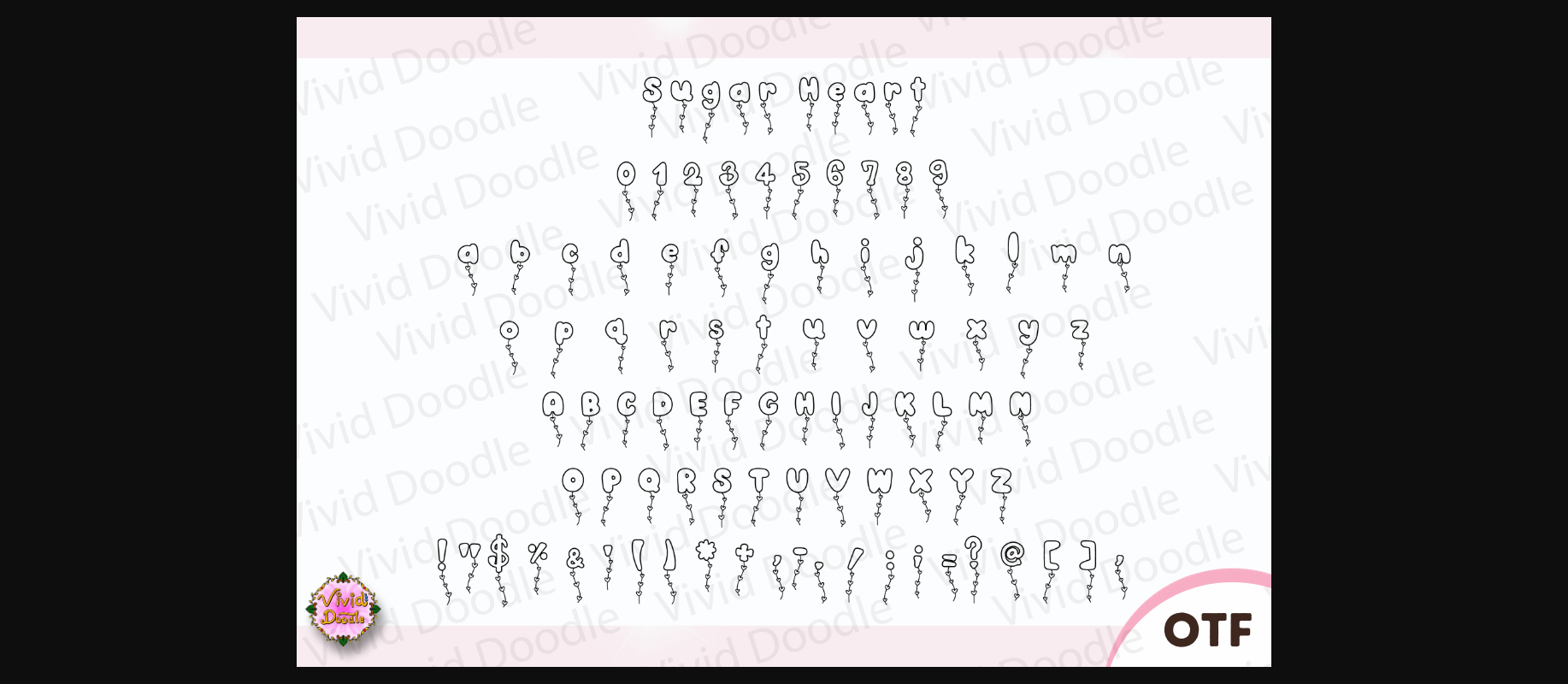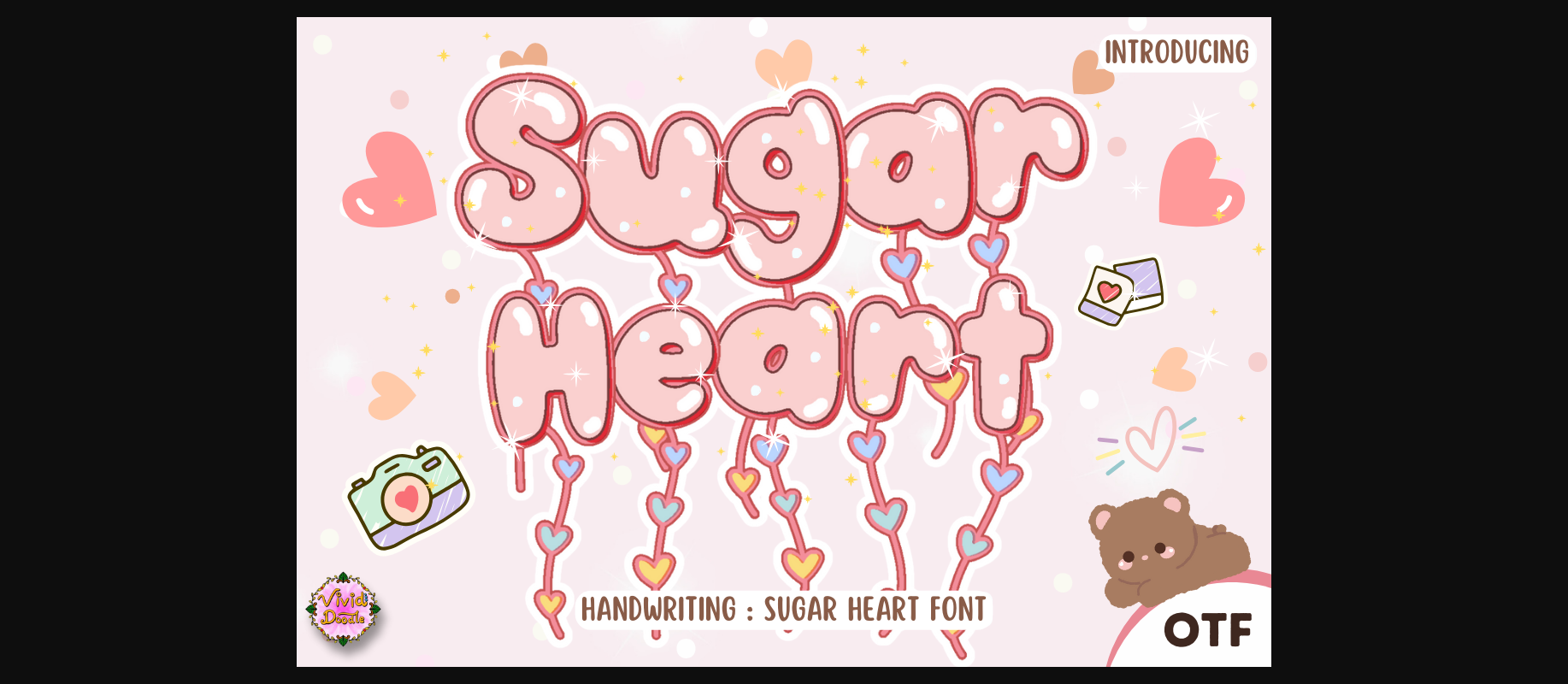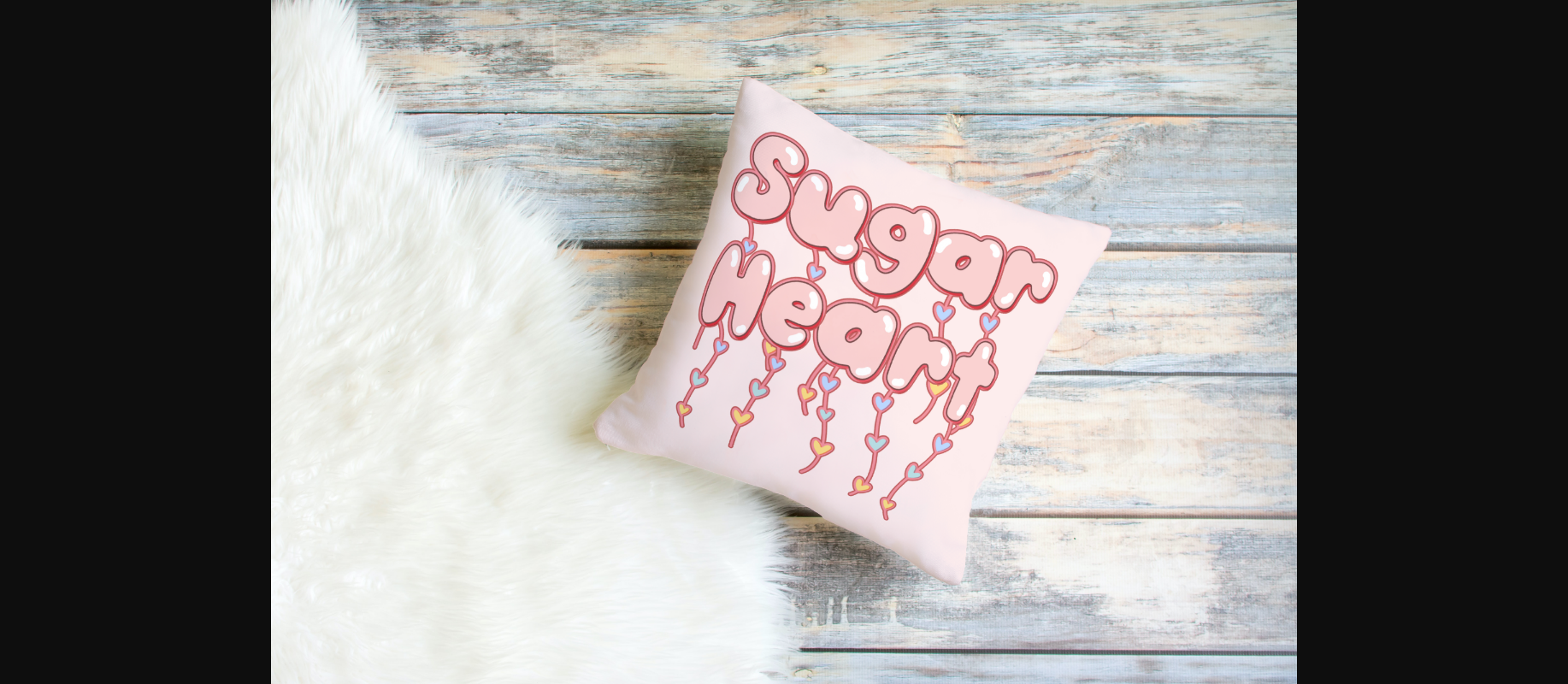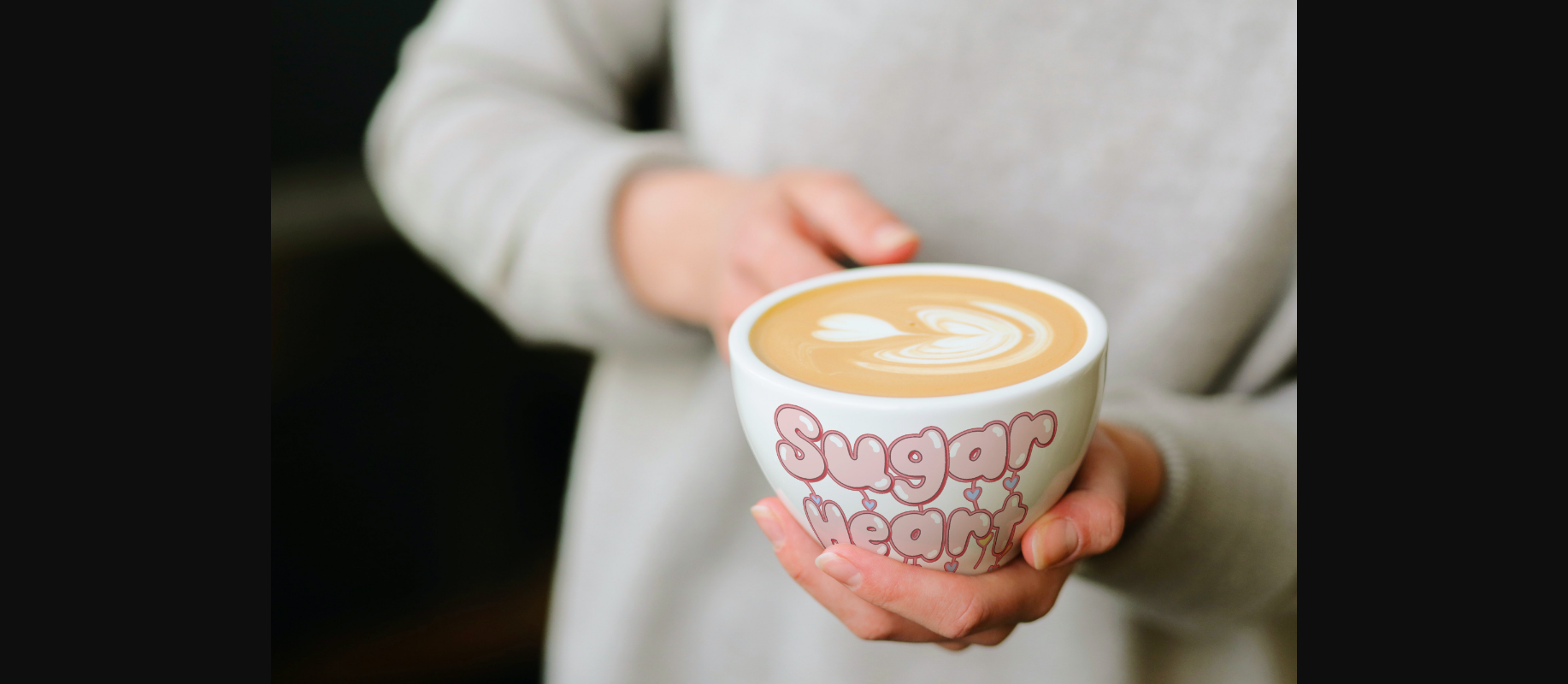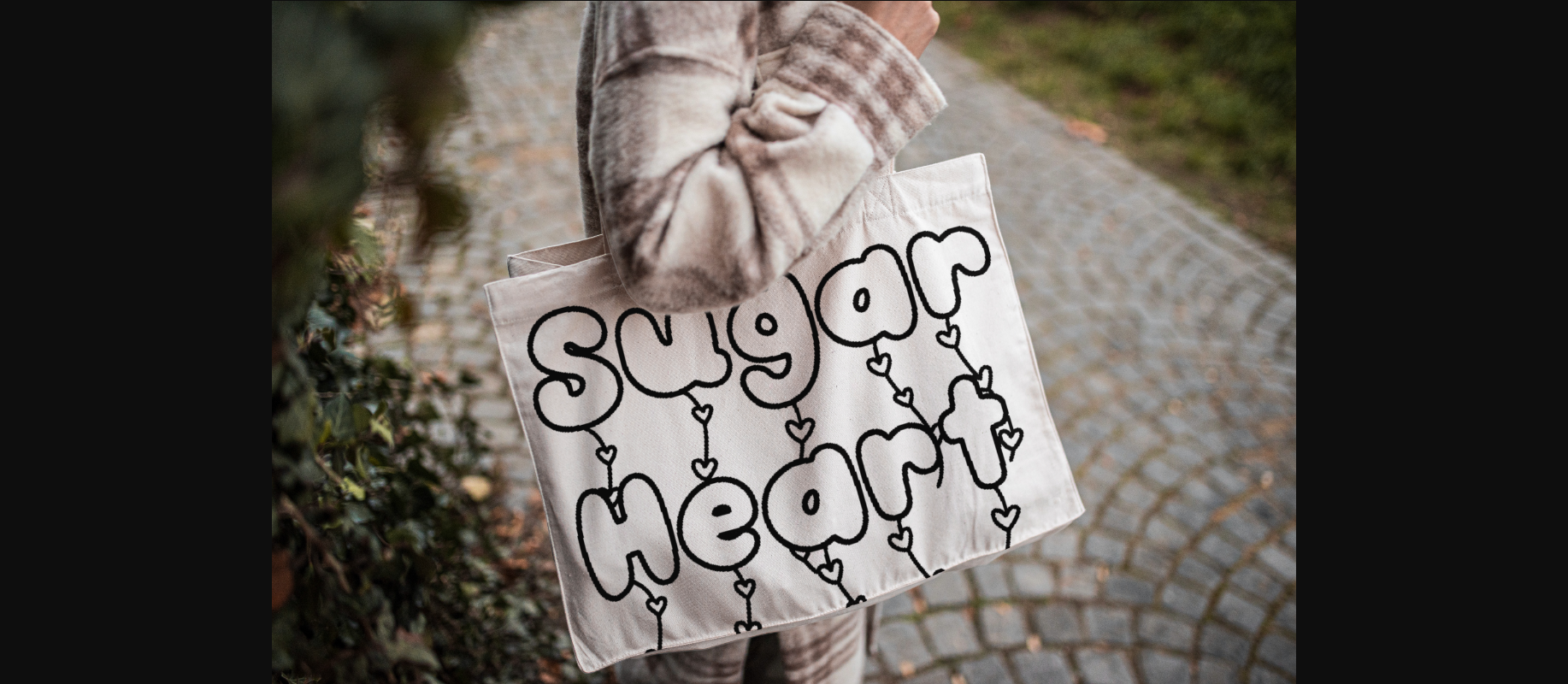
About Sugar Heart Font
Celebrate the spirit of Valentine’s Day with our charming heart-themed font! Immerse yourself in the romantic vibes as you explore this newly crafted typeface, meticulously designed to infuse your creations with the delightful essence of love. Elevate your projects with the enchanting and exclusive charm of this versatile font, perfect for capturing the magic of love not only during the Valentine’s season but throughout the year.